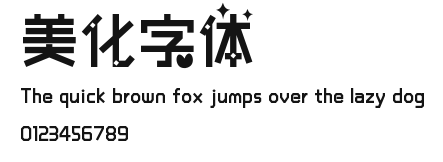
美化字体 Preview
• Font Name: 美化字体
• Full Font Name: 造字工房尚黑 G
• Designer: 丁一
• Manufacturer: 造字工房
About 美化字体.TTF
美化字体.TTF is a modern, elegant sans-serif font designed for ultimate readability and visual harmony. Perfect for branding, headlines, web design, and print materials.